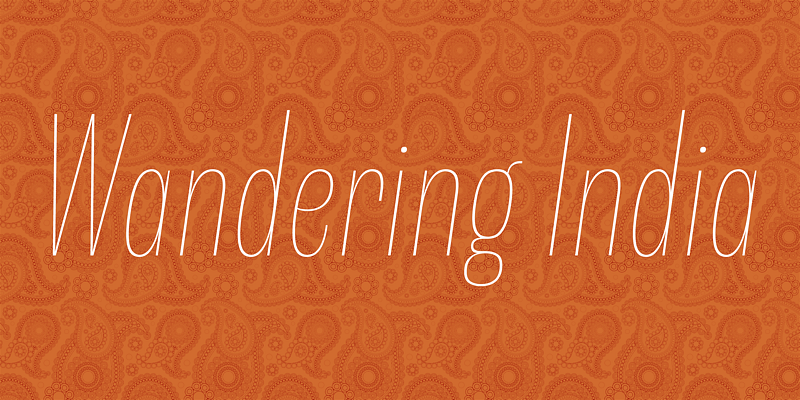
Shiva
Shiva font family is very narrowed family for text and titling. Even though Shiva have very thin strokes, they give strong, impactive and dignified image.